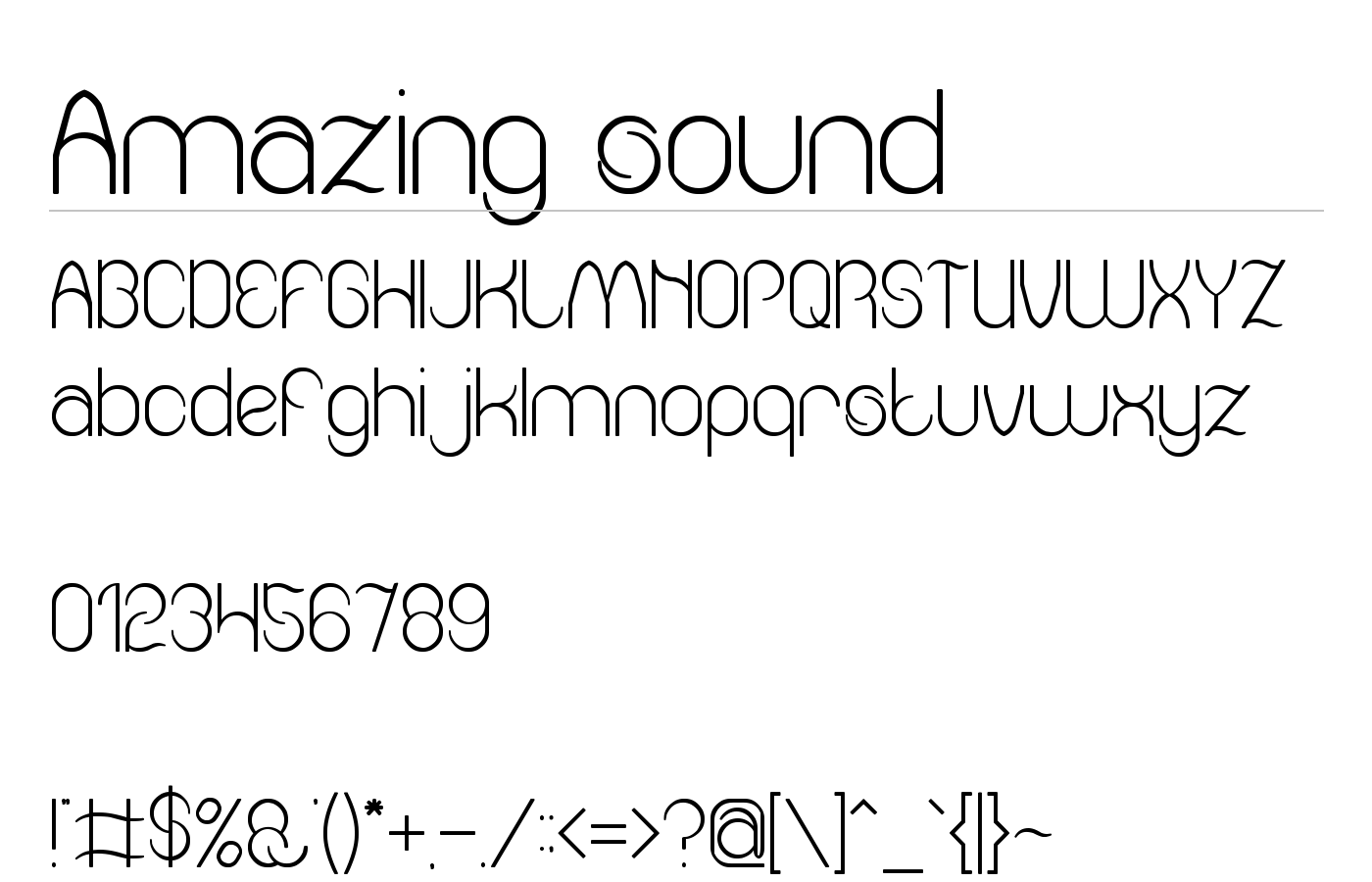
Amazing Sound Font is a slender, elegant sans serif typeface with a modern, artistic flair. Its narrow letterforms feature unique, flowing curves and subtle decorative strokes that give it a playful yet refined personality, making it ideal for creative branding, stylish headlines, and contemporary editorial designs. This font’s light weight and airy spacing help maintain readability while providing a distinct, sophisticated look perfect for fashion, music, and lifestyle projects.
Amazing sound Font